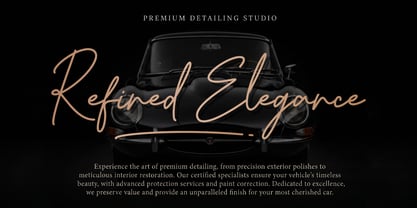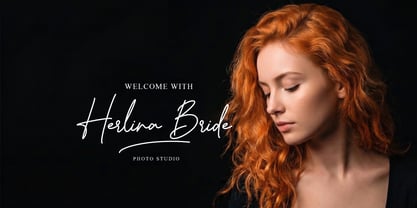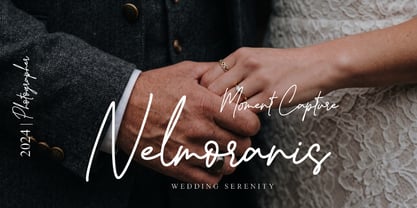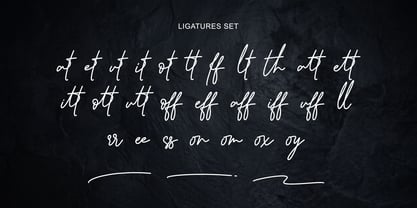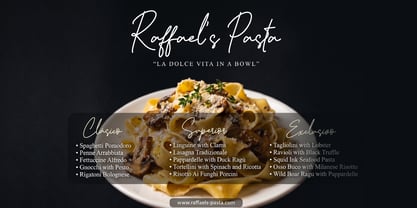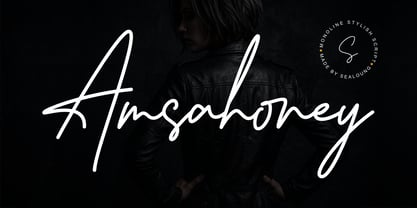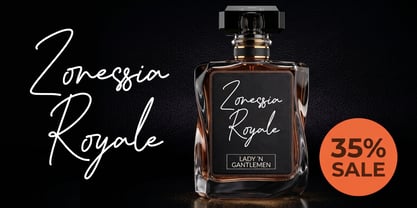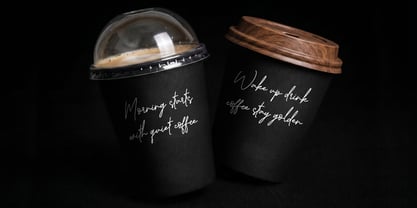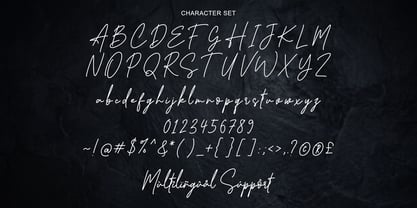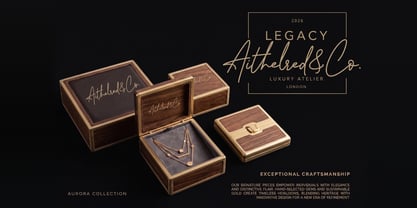
Amsahoney
The Amsahoney Font Family was designed by Saiful Anwar and published by Sealoung. Amsahoney contains 1 styles. More about this family
Amsahoney Signature Script is a modern and elegant handwritten font designed with smooth flowing strokes and a natural signature style. Its graceful curves and refined character bring a luxurious, personal, and sophisticated touch to every design.
Amsahoney Signature Script is perfectly suited for branding, logos, wedding invitations, social media content, advertisements, product packaging, labels, photography watermarks, stationery, and any creative project that needs a stylish handwritten feel.
• Standard Glyphs
• Beautiful Ligatures
• Multilingual Support
Amsahoney Signature Script is the perfect choice for creating elegant, modern, and eye-catching typography with a personal signature touch.